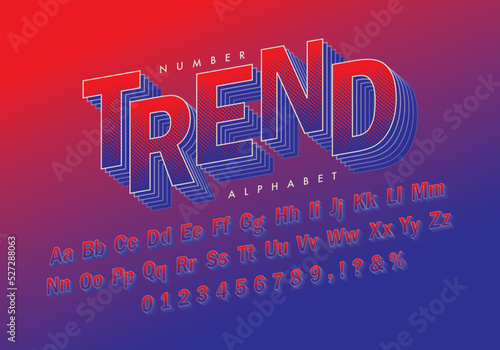
Gradient angled font in red and blue halftone. Vector 3D comic screen tone typographic design. Dimensional alphabet and number. Stylish cool typeface for poster, cover, brochure, graphic layout, etc.